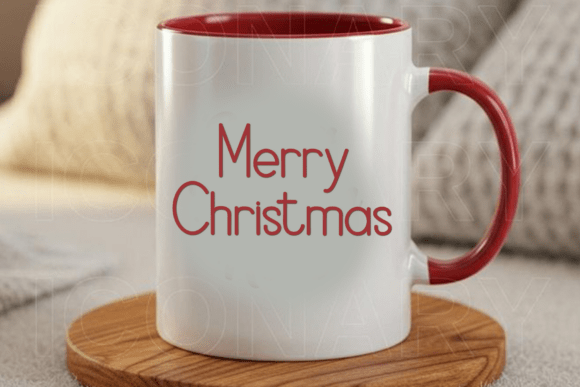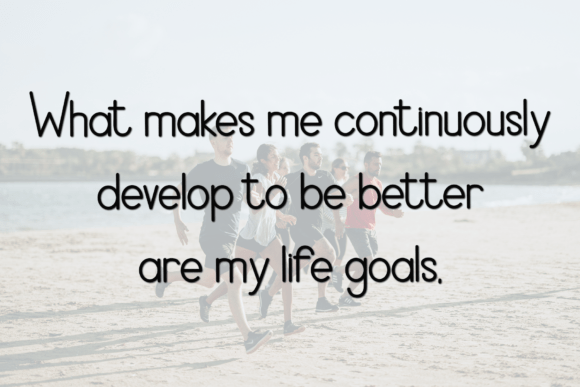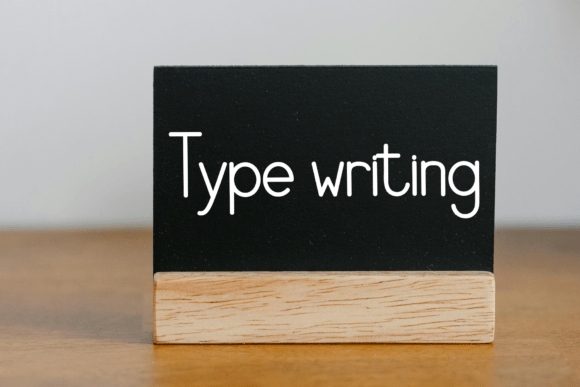
Introduction to Journey Pencil Font
As a designer, there’s nothing quite like the thrill of bringing a creative project to life. Whether you’re crafting a festive holiday card or designing a set of gift tags, the right typography can make all the difference. And that’s exactly where Journey Pencil Font comes in – a merry and whimsical typeface that captures the magic of the holiday season.
Imagine browsing through a stack of vintage holiday cards, each one a treasure trove of nostalgic charm. That’s the feeling you’ll get when you use Journey Pencil Font in your designs. With its decorative elements and high-quality glyphs, this font is the perfect addition to any creative project. And the best part? It’s free to download, making it an invaluable resource for designers of all levels.
Key Features of Journey Pencil Font
- Unique, hand-drawn design perfect for creative projects and illustrations.
- High-quality font with transparent background, allowing for seamless integration into various design elements.
- Perfect for adding a personal touch to creative projects, such as children’s books, greeting cards, and more.
Honest Review: Journey Pencil Font
As a designer, I’ve had the chance to work with many fonts, but the Journey Pencil Font has been a pleasant surprise. Its free download feature is a great bonus, making it an excellent design resource for creatives on a budget.
One of the standout features of this font is its high quality. The lines are smooth, the strokes are precise, and the overall aesthetic is clean and elegant. ✨ The transparent background also makes it easy to use on various design projects.
Here are some of the things that work well for me:
- Perfect for handwritten-style projects
- Wide range of styles and weights to choose from
- May not be suitable for formal or corporate projects
- Limited to handwritten-style fonts, may not be versatile for all design projects
- The free version has some minor glitches in certain software
Overall, I’m impressed with the Journey Pencil Font. It’s a great addition to any designer’s toolbox, and I’d definitely recommend it for creative projects. Just keep in mind its limitations and use it accordingly.
Journey Pencil Font
Getting the Most Out of Journey Pencil Font
To get the most out of Journey Pencil Font, use it on a transparent background to create a seamless and professional-looking design. You can also experiment with different font sizes and colors to add visual interest to your design. Additionally, pair the font with other high-quality design resources to create a cohesive and engaging design.
Journey Pencil Font is perfect for a variety of creative projects, including illustrations, graphics, and typography-based designs. You can use the font to create eye-catching social media posts, blog articles, and presentations. The font’s unique and creative design makes it ideal for designers looking for a unique and free download design resource.